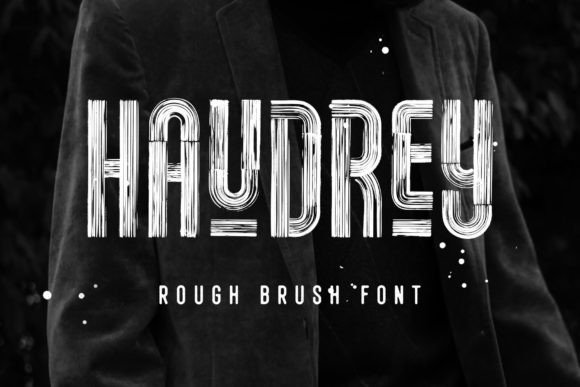
Welcome to the world of Haudrey Font, a distinctive and fascinating dry brush display font that will add a touch of creativity to your designs. Crafted by the talented Arterfak Project, Haudrey is not just a font; it's an artistic journey that will elevate your projects to new heights.
Immerse yourself in the quirky charm of Haudrey, where each letter dances with its own unique personality. This font is an exceptional chameleon, adapting effortlessly to a myriad of contexts, whether you're crafting eye-catching flyers, captivating social media posts, or designing vibrant merchandise.
With Haudrey, you're not limited by convention; you're empowered to break free from the ordinary. Its dry brush texture exudes a sense of authenticity, adding depth and dimension to your designs. The carefully crafted glyphs and ligatures provide endless possibilities for exploration, allowing you to unleash your creativity and create designs that truly stand out.
Imagine the impact of your flyers adorned with Haudrey's bold and expressive characters. Your messages will leap off the page, capturing attention and leaving a lasting impression. In the realm of social media, Haudrey will transform your posts into visual masterpieces, ensuring your content shines brighter than ever before. And when you venture into the world of merchandise, Haudrey will elevate your designs to new heights, creating products that are as unique and captivating as your brand.
But Haudrey is more than just a collection of letters; it's an invitation to embark on a creative adventure. With its PUA encoding, accessing all the glyphs and ligatures is a breeze, empowering you to unleash your imagination and explore new typographic horizons.
Join the ranks of creative visionaries who have embraced Haudrey's allure. Its versatility knows no bounds, making it the perfect choice for designers, artists, and creative professionals seeking a font that breaks the mold. Haudrey is the key to unlocking your creative potential, transforming your designs into works of art that resonate with audiences worldwide.
So, dive into the world of Haudrey Font today and let your creativity soar. Embrace the quirky charm, revel in the dry brush texture, and unlock the endless possibilities that await you. Haudrey is more than a font; it's a passport to a world where imagination reigns supreme.